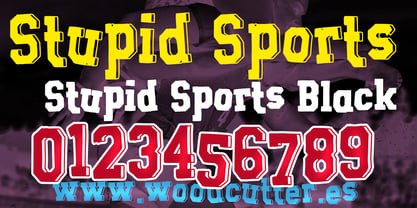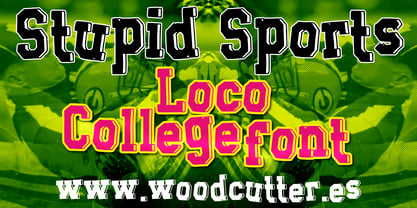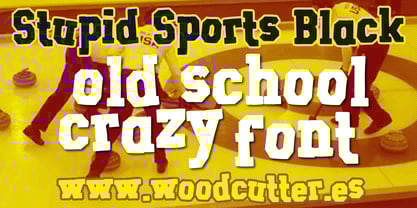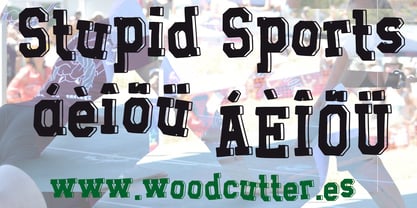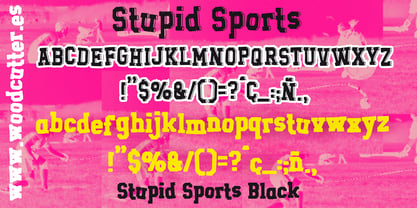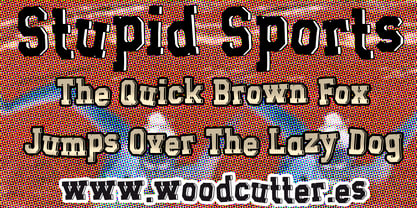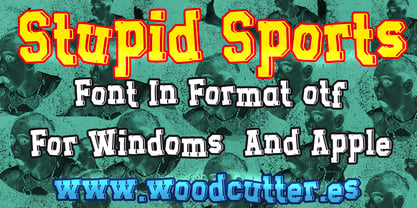
Stupid Sports
by Woodcutter
The Stupid Sports Font Family was designed by Jordi Manero and published by Woodcutter. Stupid Sports contains 2 styles and family package options. More about this family
Stupid Sports is a type family in uppercase and lowercase with accents, inspired by the classic college or varsity style but reimagined with an irreverent, playful, and chaotic twist. Each letter is irregularly positioned and visually dynamic, as if caught in motion, radiating energy, youth, and rebellion. This aesthetic breaks away from the rigidity of traditional collegiate designs, offering a refreshing look ideal for alternative sports projects, event posters, or visual identities that aim for a fun and energetic tone. The family includes two variants: -Stupid Sports, the version with 3D shadow, where each letter seems to pop out of the surface, creating a three-dimensional, voluminous, and slightly cartoonish effect. -Stupid Sports Black, the solid version, completely black, bold, and visually powerful—perfect for stronger, cleaner, or minimalist compositions. Both versions share the same rebellious and energetic essence that defines the family, merging athletic inspiration with informal creativity. Stupid Sports embodies movement, humor, and vitality. It’s the perfect typeface for eye-catching titles, youthful branding, and editorial designs that embrace controlled chaos and creative freedom.